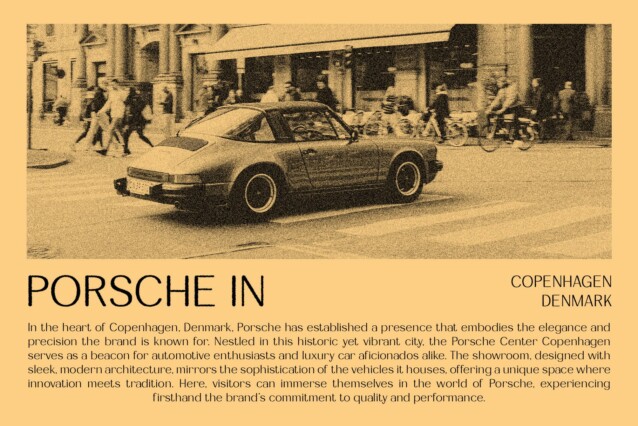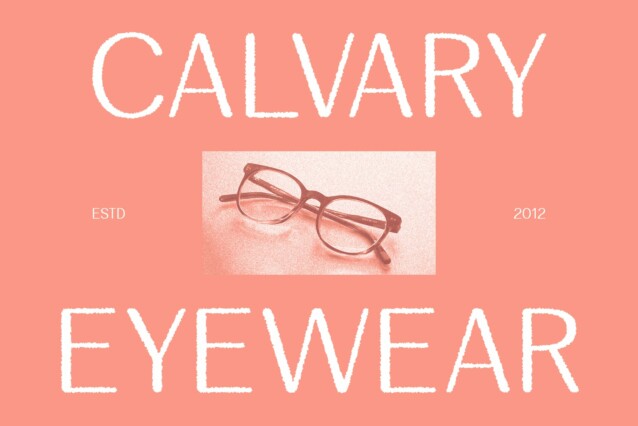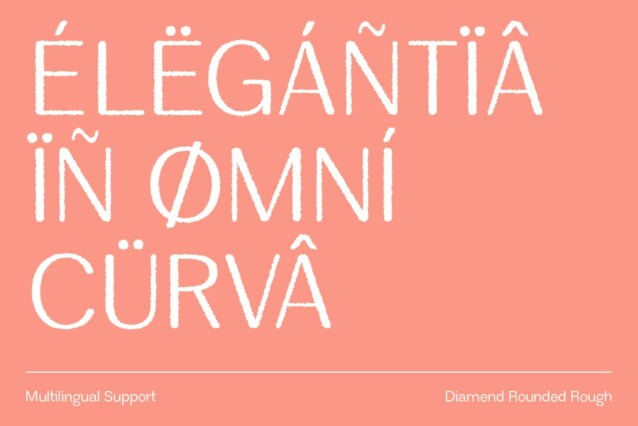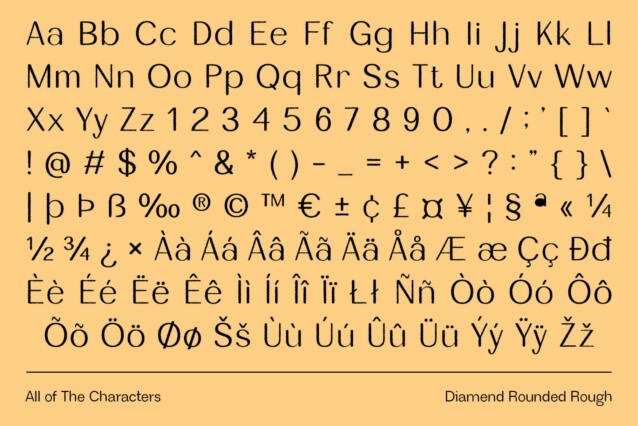
Diamend Rounded Rough Font
Diamend Rounded Rough Font: Elegant Modernity with Textured Sophistication
Sleek Sans-Serif with Rounded Forms
Diamend Rounded Rough is a modern sans-serif font featuring rounded, sleek, and minimalist forms that convey elegance and sophistication. Its smooth, clean lines are complemented by rounded edges, which soften the overall appearance and add a friendly touch.